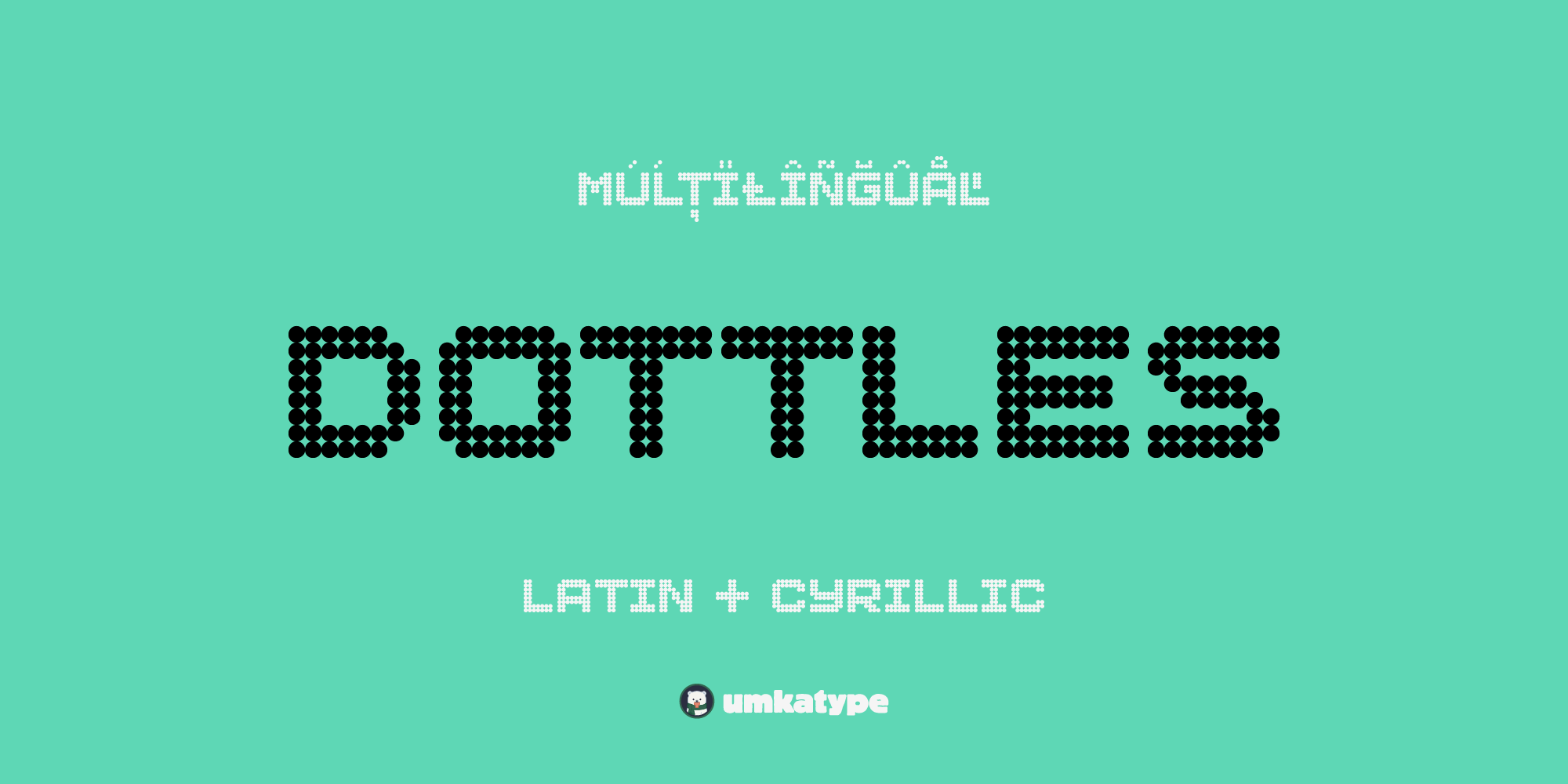
Dottles Font Free Download – A playful, dotted display typeface that adds whimsical texture and modern charm to any design. Commercial projects require licensing, but free personal testing is available.
Where to Use Dottles Font?
This unique stippled font is perfect for:
• Children’s book titles & educational materials
• Playful branding & packaging design
• Quirky social media graphics
• DIY crafts & scrapbooking
• Modern textile prints & patterns
• Fun event invitations & posters
Why Dottles Font is So Engaging
This isn’t just another dotted font – it offers:
→ Perfectly balanced dot spacing for readability
→ Three dot density variations (Light, Regular, Bold)
→ Smooth curves that maintain dot pattern integrity
→ Special "connect-the-dots" alternate characters
→ Playful yet professional versatility